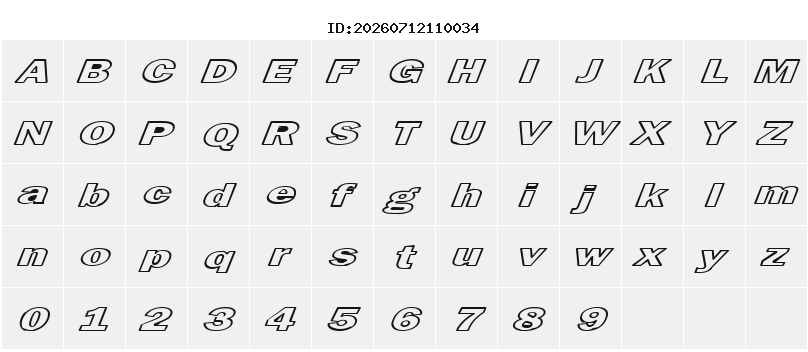
MaltfrankGothicHeavy HE Preview
• Font Name: MaltfrankGothicHeavy HE
• Font ID: Monotype:MaltfrankGothicHeavy HE Bold Italic:TCC
• Full Font Name: MaltfrankGothicHeavy HE Bold Italic
• PostScript Name: MaltfrankGothicHeavyHE-BoldItalic
About MaltfrankGothicHeavy HE.ttf
MaltfrankGothicHeavy HE.ttf is a modern, elegant sans-serif font designed for ultimate readability and visual harmony. Perfect for branding, headlines, web design, and print materials.